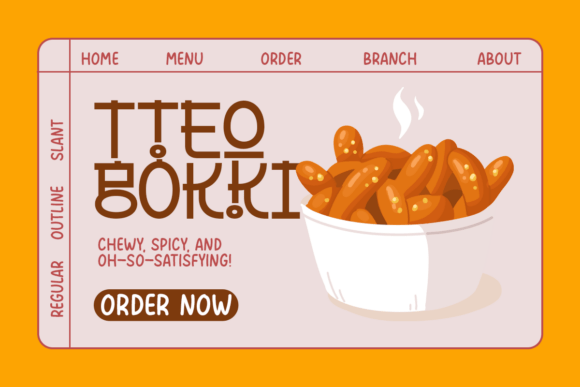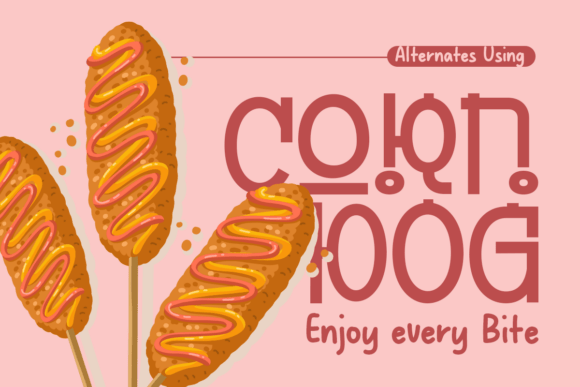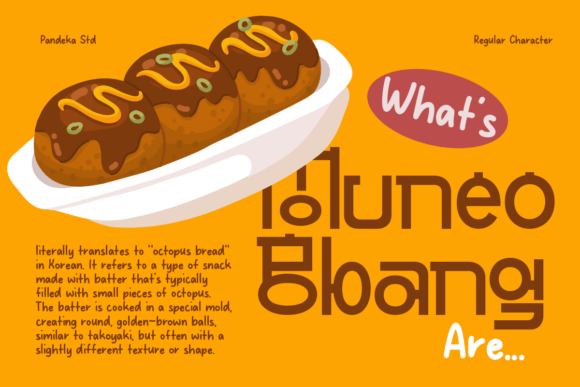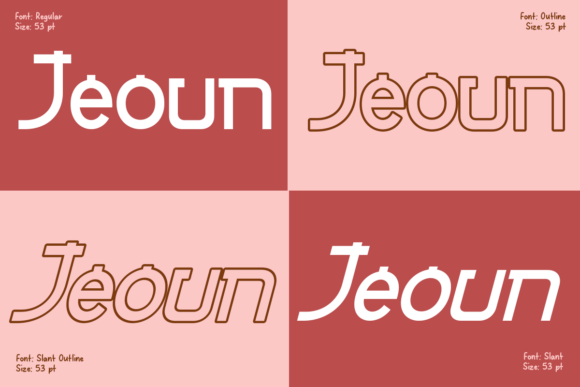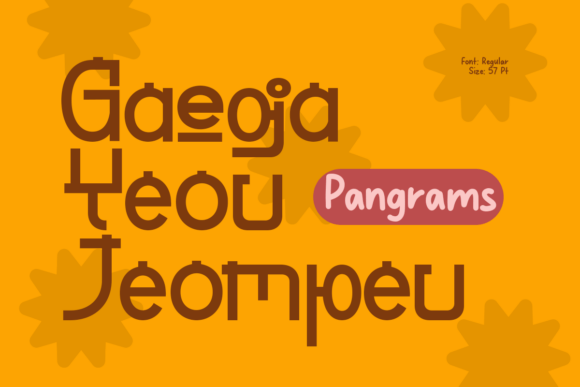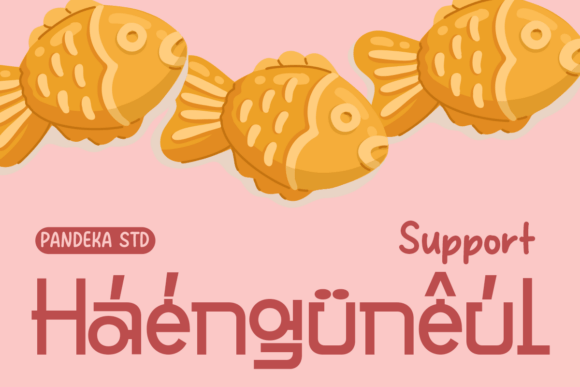
Unlocking the Flair of Korean Design: Introducing Gyeora Font
As a designer, there’s nothing quite like the thrill of stumbling upon a new font that perfectly captures the essence of a project. For me, it was a late-night search for the perfect typography to match the vibrant energy of a Korean-inspired branding project. That’s when I discovered Gyeora Font – a game-changing display typeface that seamlessly blends traditional Korean aesthetics with modern design sensibilities.
Gyeora Font is more than just a stylish addition to your design arsenal; it’s a powerful tool that can elevate your cultural projects, logos, posters, and branding to the next level. With four unique styles to choose from – Outline, Outline Slant, Regular, and Slant – you’ll find the perfect fit for any creative endeavor. Whether you’re working on a traditional Korean-inspired project or simply looking to add a touch of cultural flair, Gyeora Font is sure to inspire.
Gyeora Font Key Features
- Font Family: Gyeora is a sans-serif font family designed for modern and minimalist designs.
- Font Size: Gyeora is available in 4 font sizes: Light, Regular, Medium, and Bold, catering to diverse design requirements.
- Resolution: The font is optimized for high-resolution displays, ensuring crisp and clear text at any zoom level.
- Unique Characteristics: Gyeora features a unique geometric design with clean lines and a minimalist aesthetic, making it ideal for modern designs.
- Language Support: Gyeora supports a wide range of languages, including Latin, Cyrillic, and Greek alphabets, making it a versatile font choice.
Gyeora Font Review
I recently had the chance to work with the Gyeora font, and I must say, it’s an interesting choice. Here are my honest thoughts.
- The Gyeora font has a unique, hand-drawn feel that can add a touch of whimsy to your designs.
- The font is highly customizable, with a wide range of weights and styles available.
- The font is well-suited for titles and headings, where its bold and playful personality can shine.
- The Gyeora font can be difficult to read at smaller font sizes, particularly in body text.
- The font’s unique style may not be suitable for all types of content, such as technical or formal documents.
- The font may require additional formatting or styling to ensure it displays correctly across different platforms.
Overall, the Gyeora font is a great choice for designers who want to add a touch of personality to their work. While it may have some limitations, its unique style and high level of customization make it a versatile and interesting font to work with.
Gyeora Font Practical Application Guide
Tips for Getting the Most Out of Gyeora Font
To maximize the impact of Gyeora Font, consider the following tips:
- Use contrasting colors to make the text stand out.
- Combine Gyeora Font with other design elements to create a cohesive look.
Gyeora Font is particularly suitable for:
- Designing invitations and event materials.
- Creating digital art and graphics.
- Adding a touch of elegance to business presentations and reports.
Alternatives to Gyeora Font for Designers
1. Noto Sans KR
Noto Sans KR is a free, open-source font designed by Google. It’s a versatile font suitable for body text, headings, and titles. It’s ideal for use in digital products, websites, and mobile applications. Noto Sans KR is a more formal and professional font compared to Gyeora Font, making it suitable for corporate and business applications.
2. Do Hyeon
Do Hyeon is a modern Korean font designed by Hyesoo Lee. It’s a clean and elegant font suitable for use in various design contexts, including magazines, newspapers, and digital products. Do Hyeon has a more refined and sophisticated look compared to Gyeora Font, making it suitable for use in high-end design projects.
3. Nanum Myeongjo
Nanum Myeongjo is a free, open-source font designed by the Korean government. It’s a traditional Korean font with a classic and elegant look, making it suitable for use in historical and cultural design projects. Nanum Myeongjo has a more formal and conservative look compared to Gyeora Font, making it suitable for use in traditional and cultural contexts.